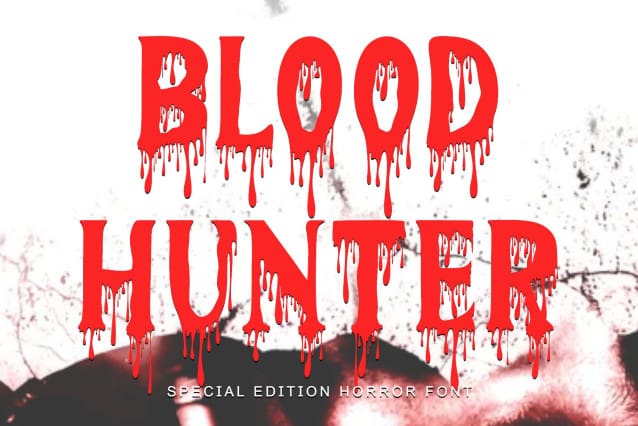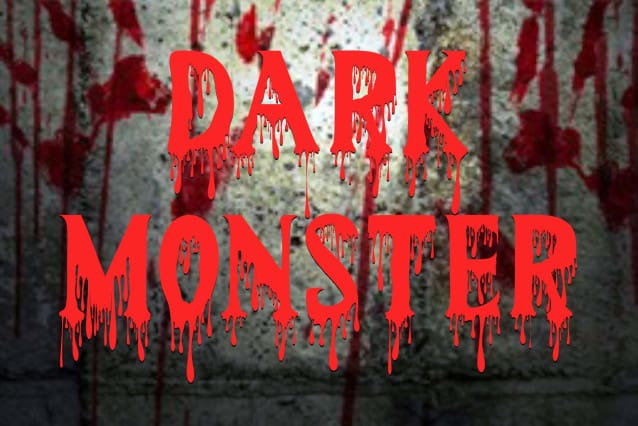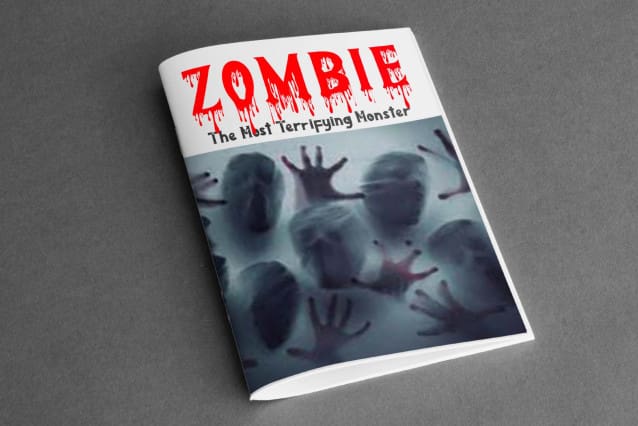
Blood Hunter Font
Blood Hunter Font is a special edition font with a horror theme with melted blood on each letter. This font is equipped with uppercase, lowercase, numerals, punctuations and multilingual support. Very suitable for Halloween, horror movies, film titles, book titles, YouTube, concerts, metal music and others.